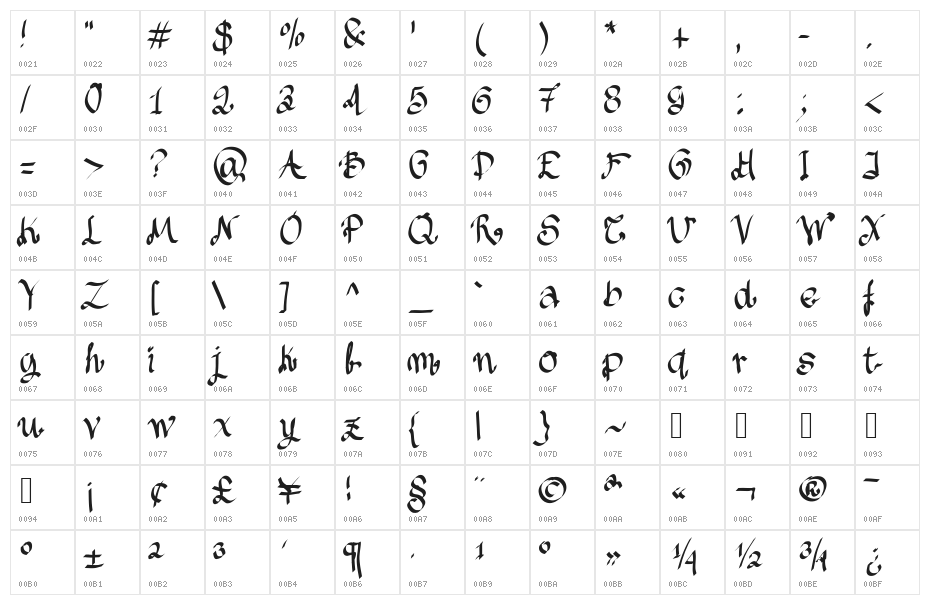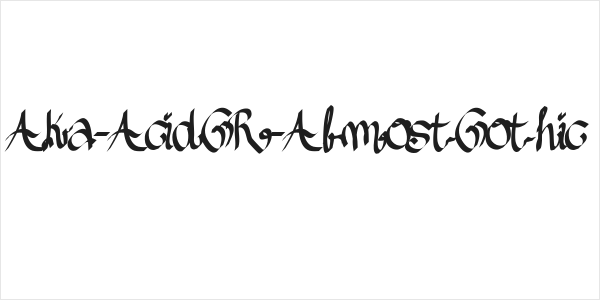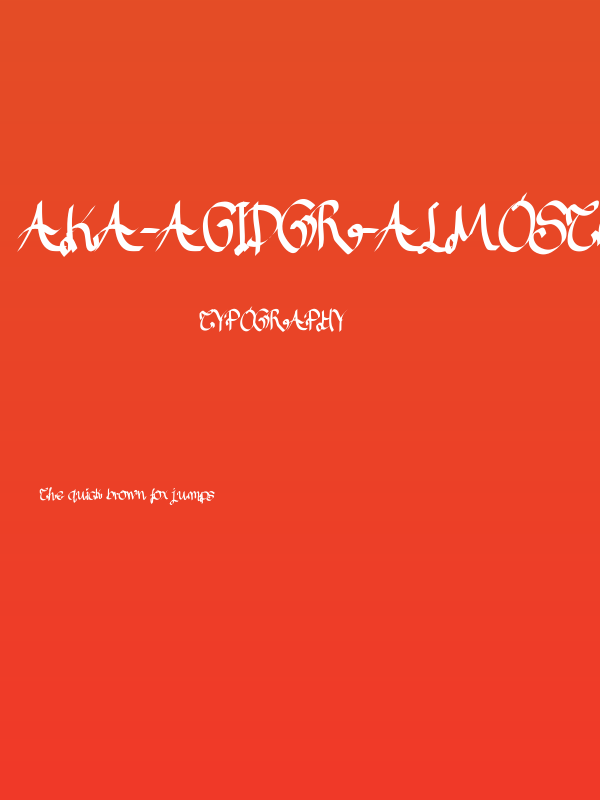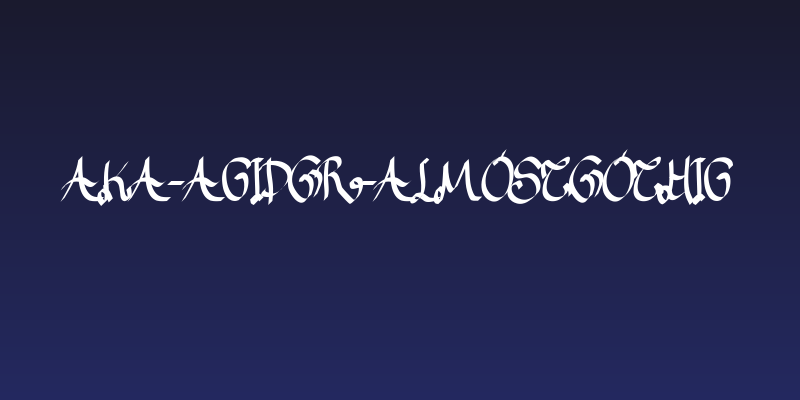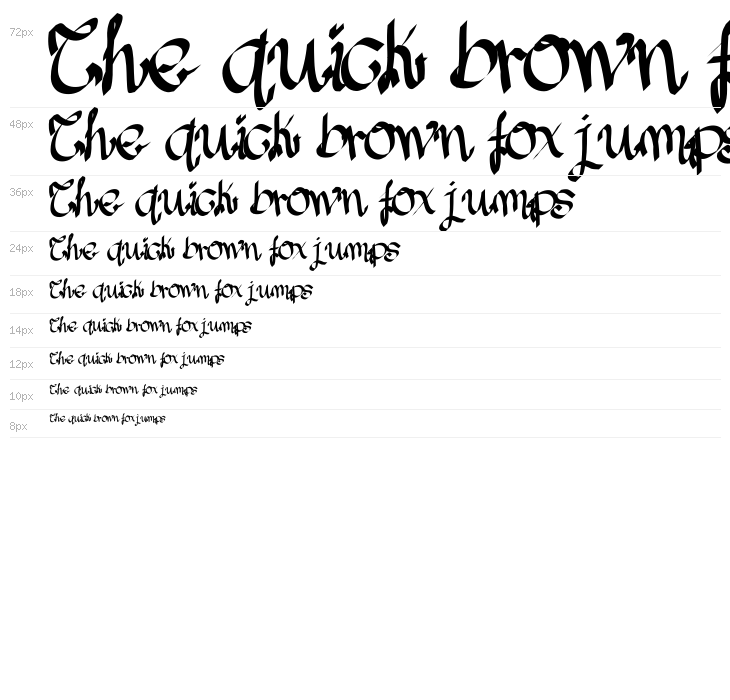
Aka-AcidGR-AlmostGothic Font
Aka-AcidGR-AlmostGothic Description
This font features a bold and dramatic style with a strong gothic influence. The characters are intricately designed with sharp edges and elaborate curves, giving it a distinct and almost medieval appearance. The uppercase letters are particularly ornate, with flourishes that extend beyond the typical character boundaries. The lowercase letters maintain the same level of detail, ensuring consistency throughout the typeface. Numbers and special characters are equally stylized, making this font suitable for projects that require a unique and eye-catching design. The overall aesthetic is both artistic and authoritative, making it ideal for creating impactful visual statements.
| Proposed Projects | Ideal for posters, album covers, branding for alternative or gothic-themed products, and decorative headings. |